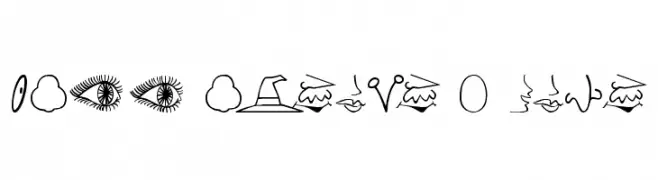
A whimsical, modular font for assembling cartoon faces.
A decorative font made of hand-drawn facial feature illustrations.
A playful, artistic font with abstract facial elements in each letter.